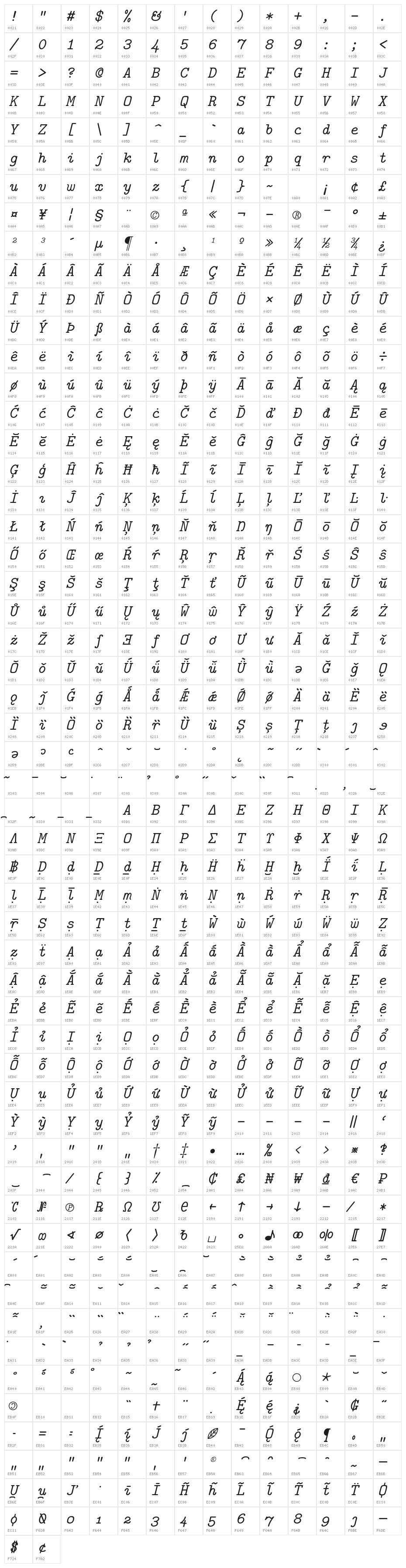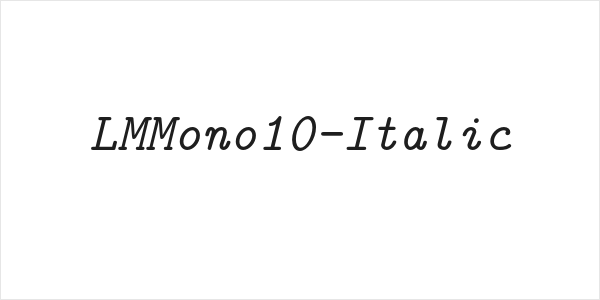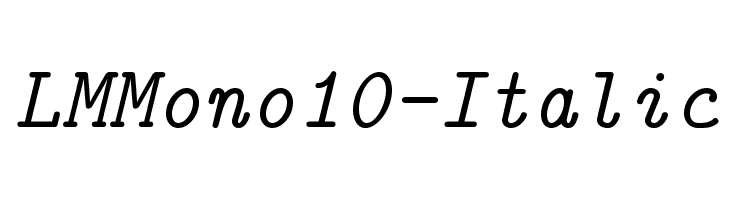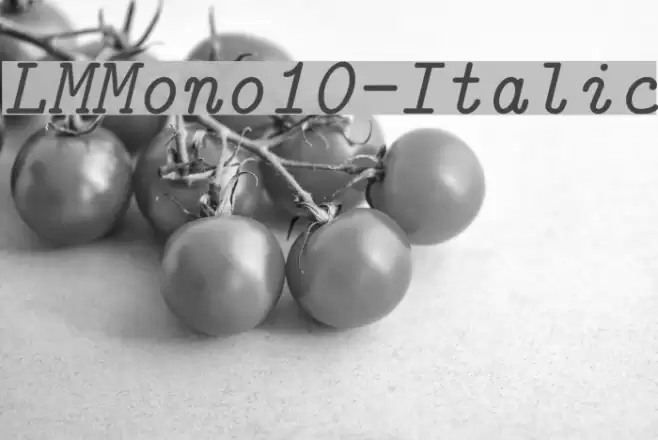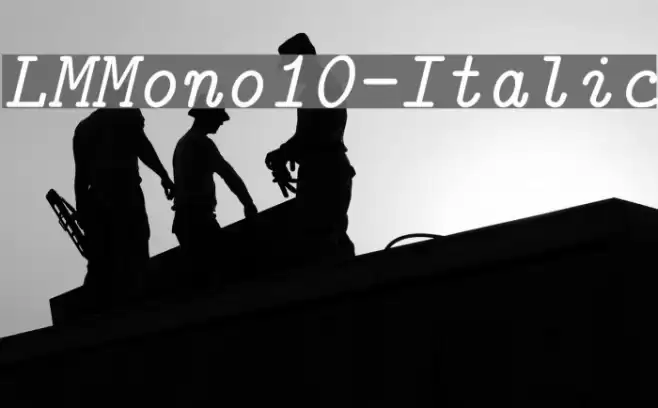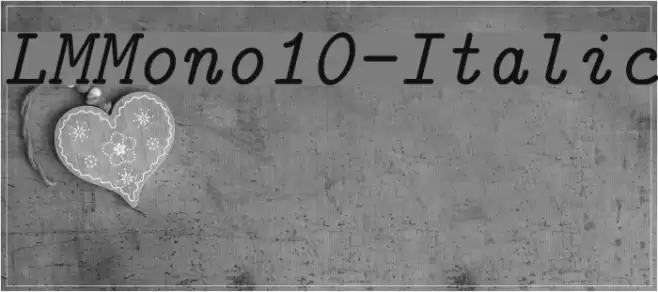
LMMono10-Italic Font
LMMono10-Italic Description
This font features a monospaced design with a distinct italic style, characterized by its uniform spacing and consistent stroke width. The slanted characters give it a dynamic and fluid appearance, while maintaining the precision typical of monospaced fonts. The uppercase letters are bold and prominent, while the lowercase letters are more rounded and approachable. Numbers and special characters are clearly defined, making it suitable for coding and technical documentation. The overall look is modern yet retains a classic typewriter feel, providing a blend of functionality and style.
| Use Case | Coding, Technical documentation |
| Proposed Projects | Ideal for coding, technical documentation, and any project requiring precise alignment and readability. |